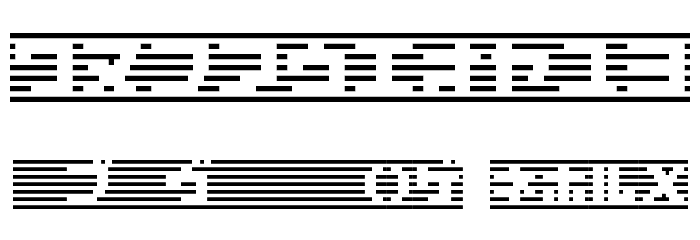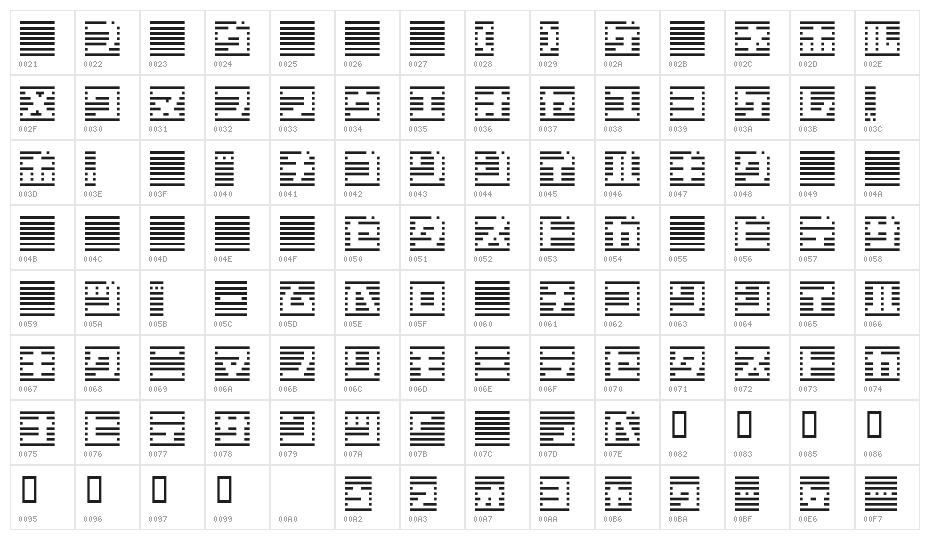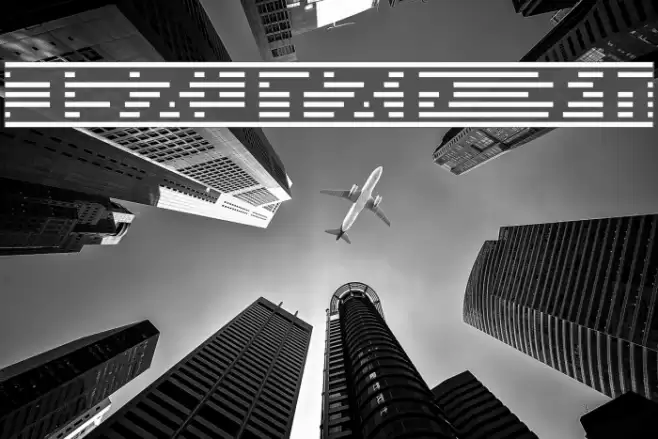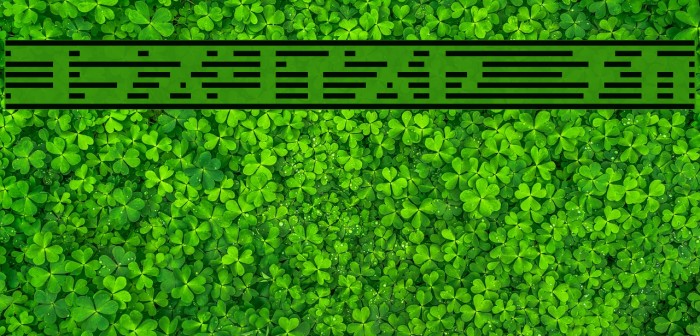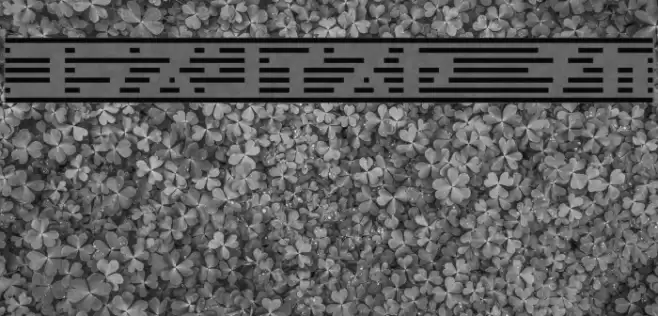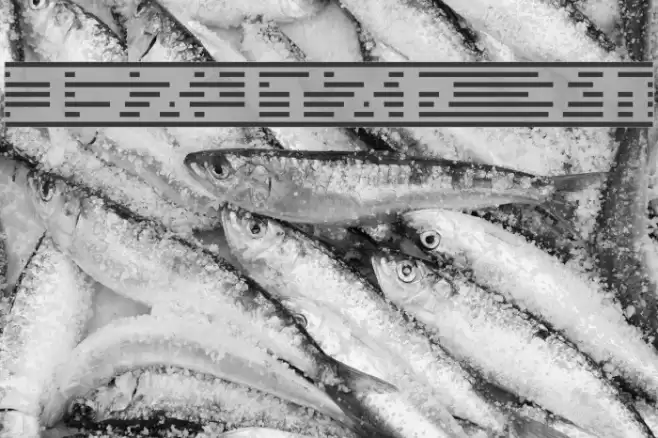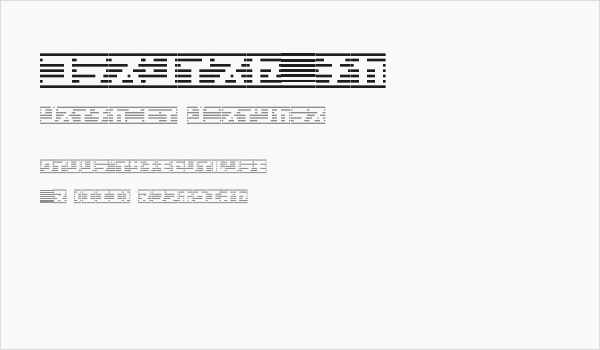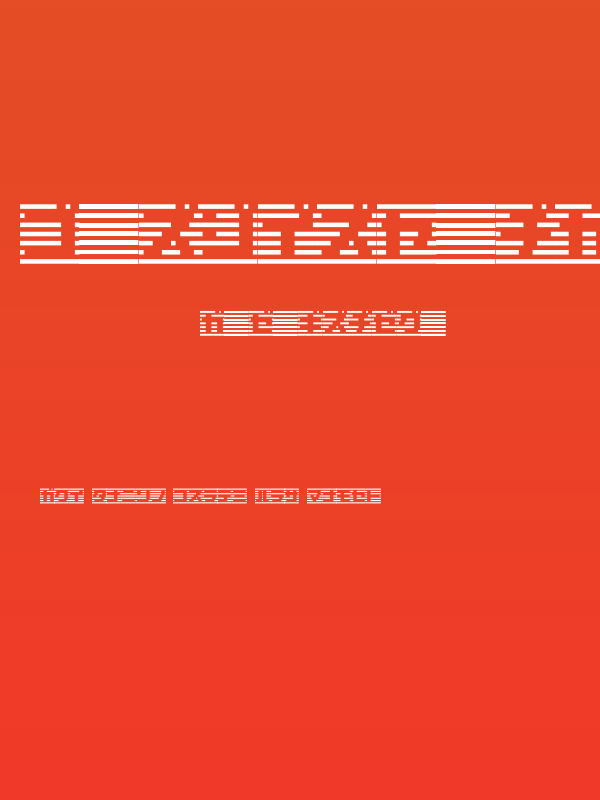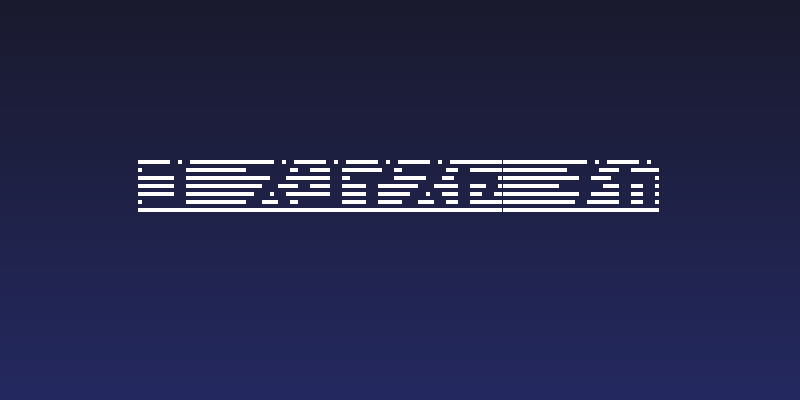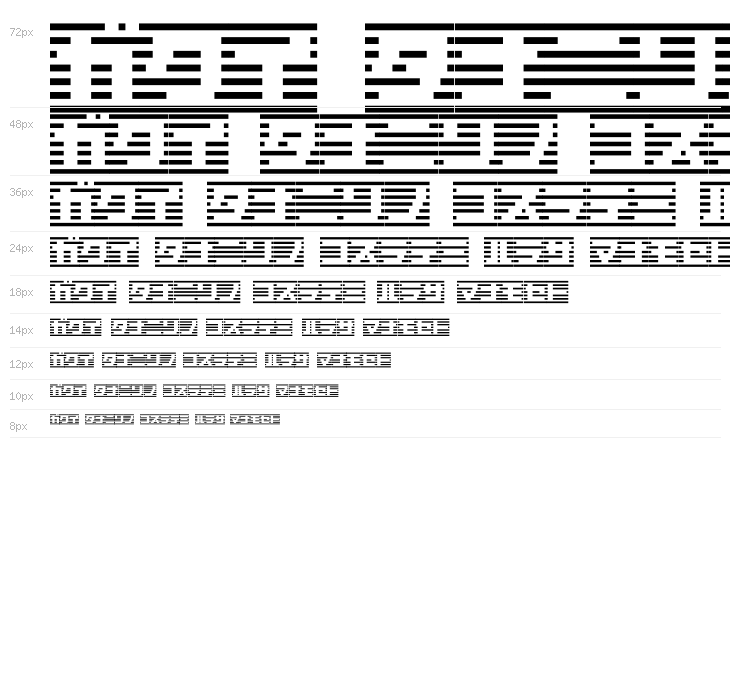
border7Kat Font
border7Kat Description
This font features a unique, futuristic design composed of horizontal lines that form each character. The style is highly geometric, with each letter and number crafted from a series of parallel lines, giving it a digital, almost barcode-like appearance. The characters are uniform in height and width, creating a cohesive and structured look. The font's distinct linear pattern makes it stand out, ideal for projects that require a modern and tech-inspired aesthetic. Its design is both minimalistic and striking, making it suitable for creative and innovative applications.
Use CaseLogos, Headlines, Digital Art
Proposed ProjectsIdeal for tech branding, digital art, futuristic posters, and innovative product packaging.